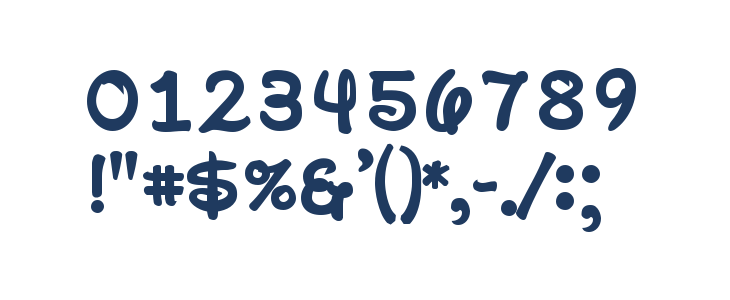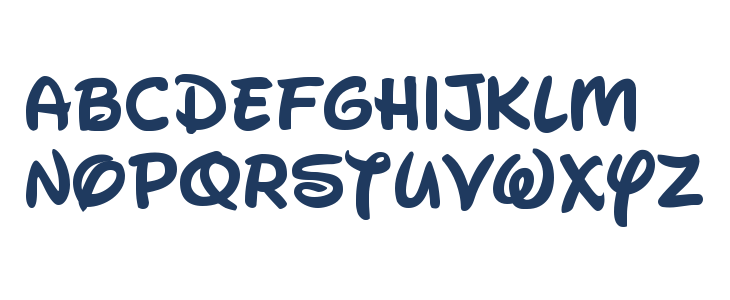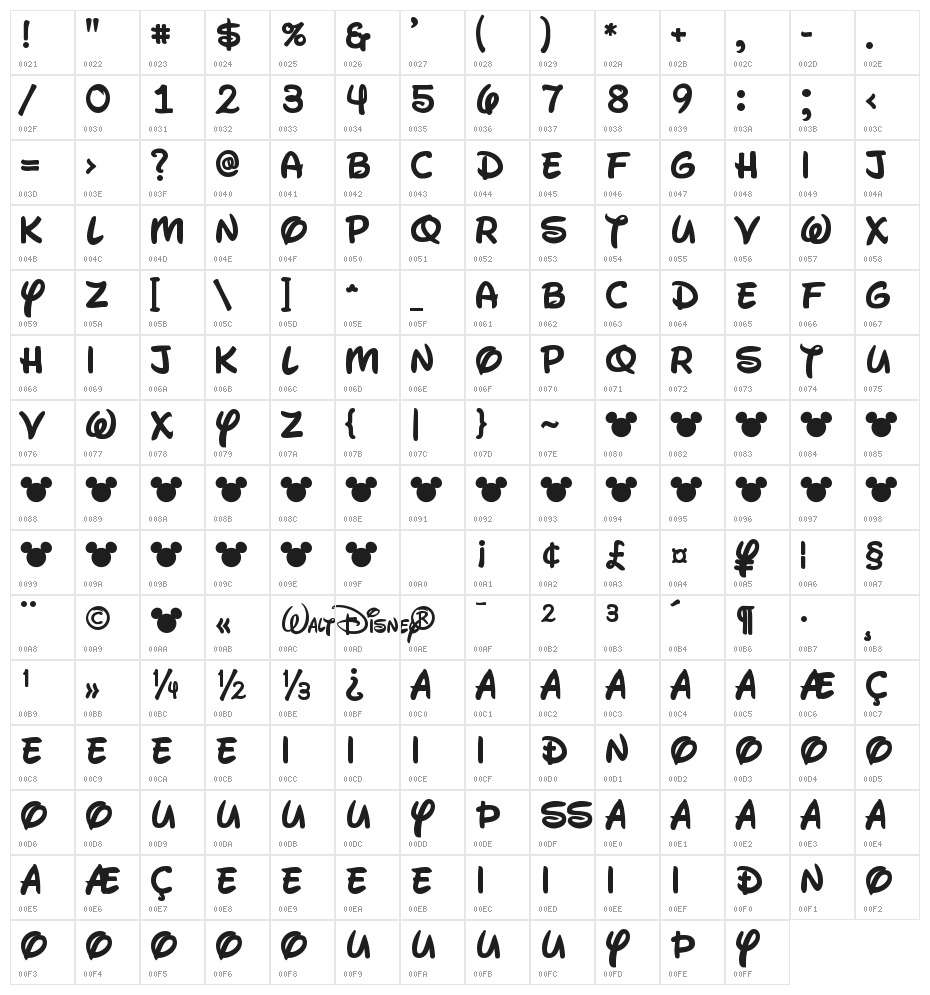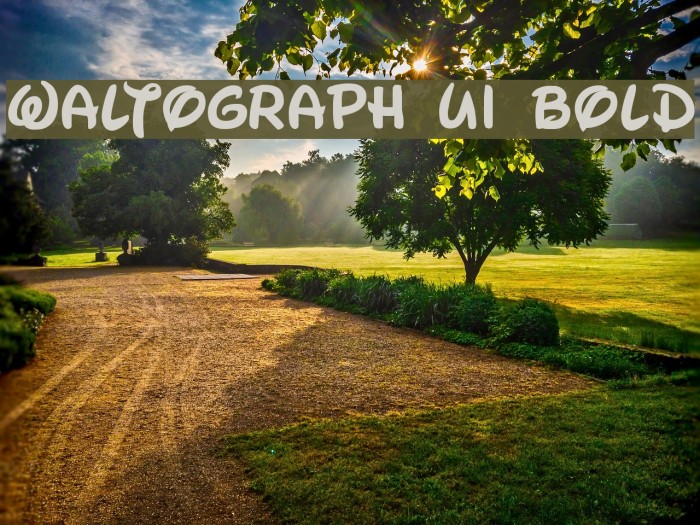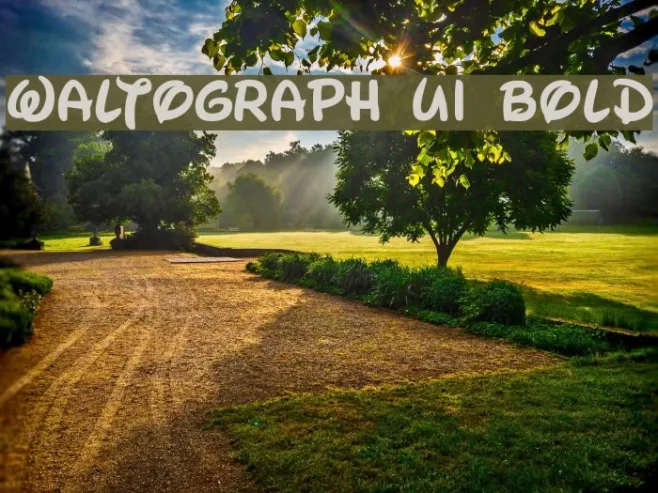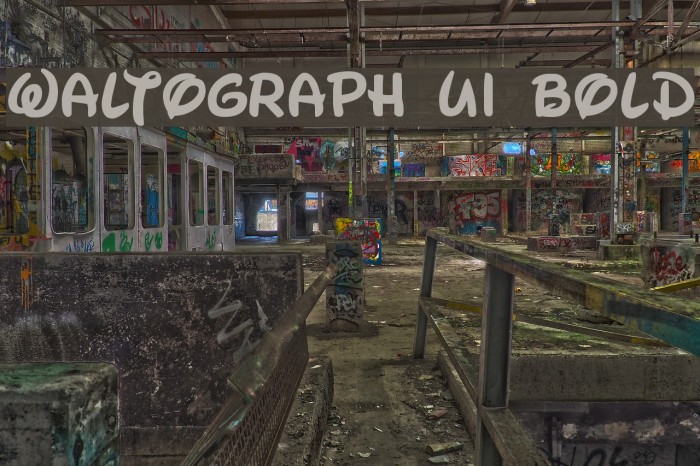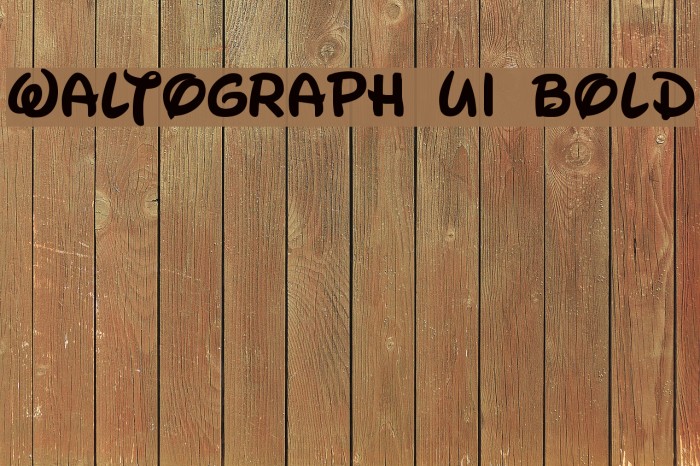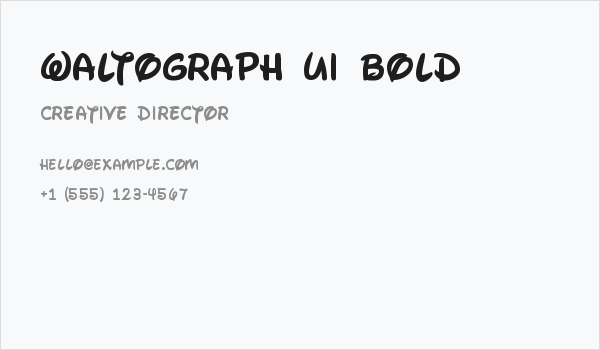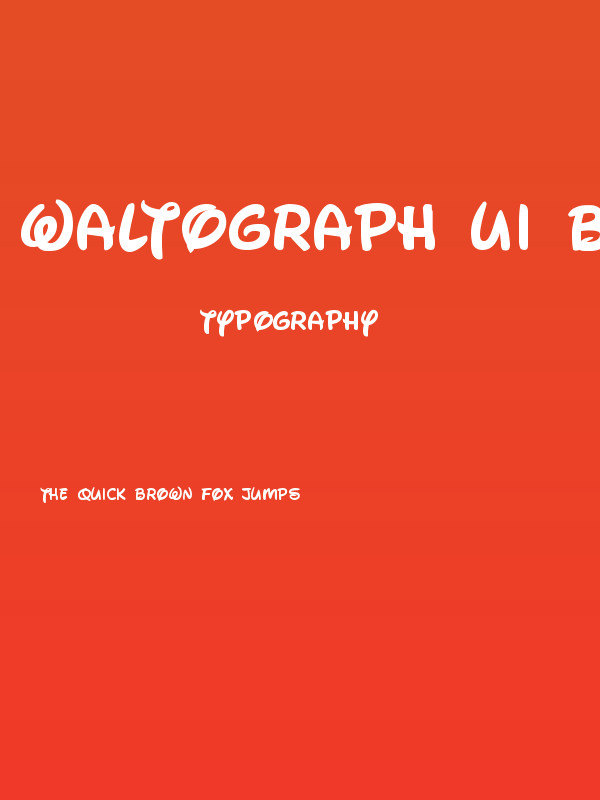
Waltograph UI Bold Font
Waltograph UI Bold Description
This playful and whimsical font features bold, rounded characters with a hand-drawn aesthetic. The letters exhibit a consistent thickness, creating a uniform appearance that is both approachable and friendly. The curves are smooth and exaggerated, giving the typeface a cartoon-like quality. The font maintains a lively and energetic feel, making it suitable for projects that require a touch of fun and creativity. Its unique style is reminiscent of classic animated film titles, capturing a sense of nostalgia and joy. The characters are well-spaced, ensuring readability while maintaining the font's distinctive personality.
| Overall Style | Playful, Whimsical, Cartoon-like |
| Proposed Projects | Ideal for children's books, animated film titles, playful branding, and creative posters. |